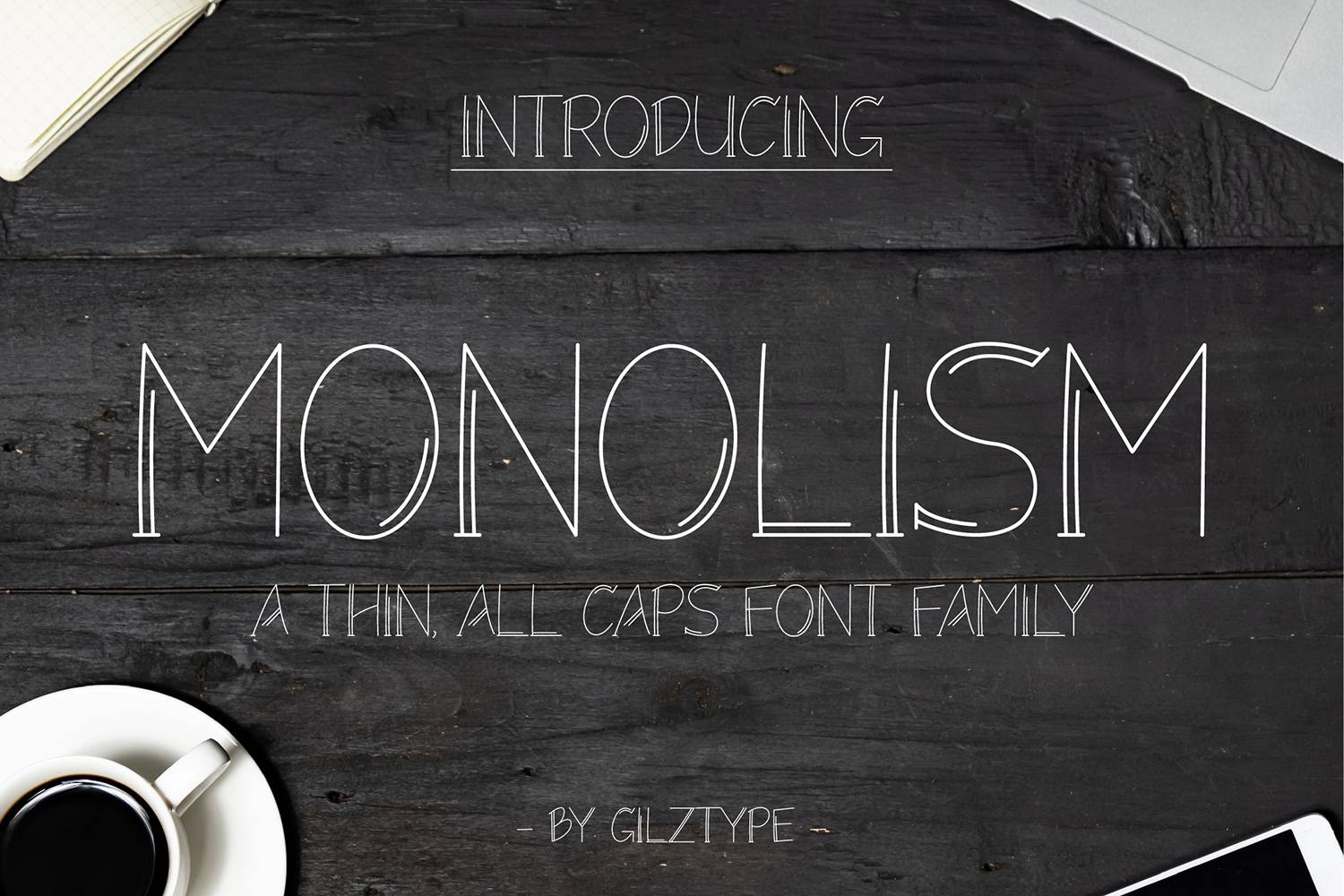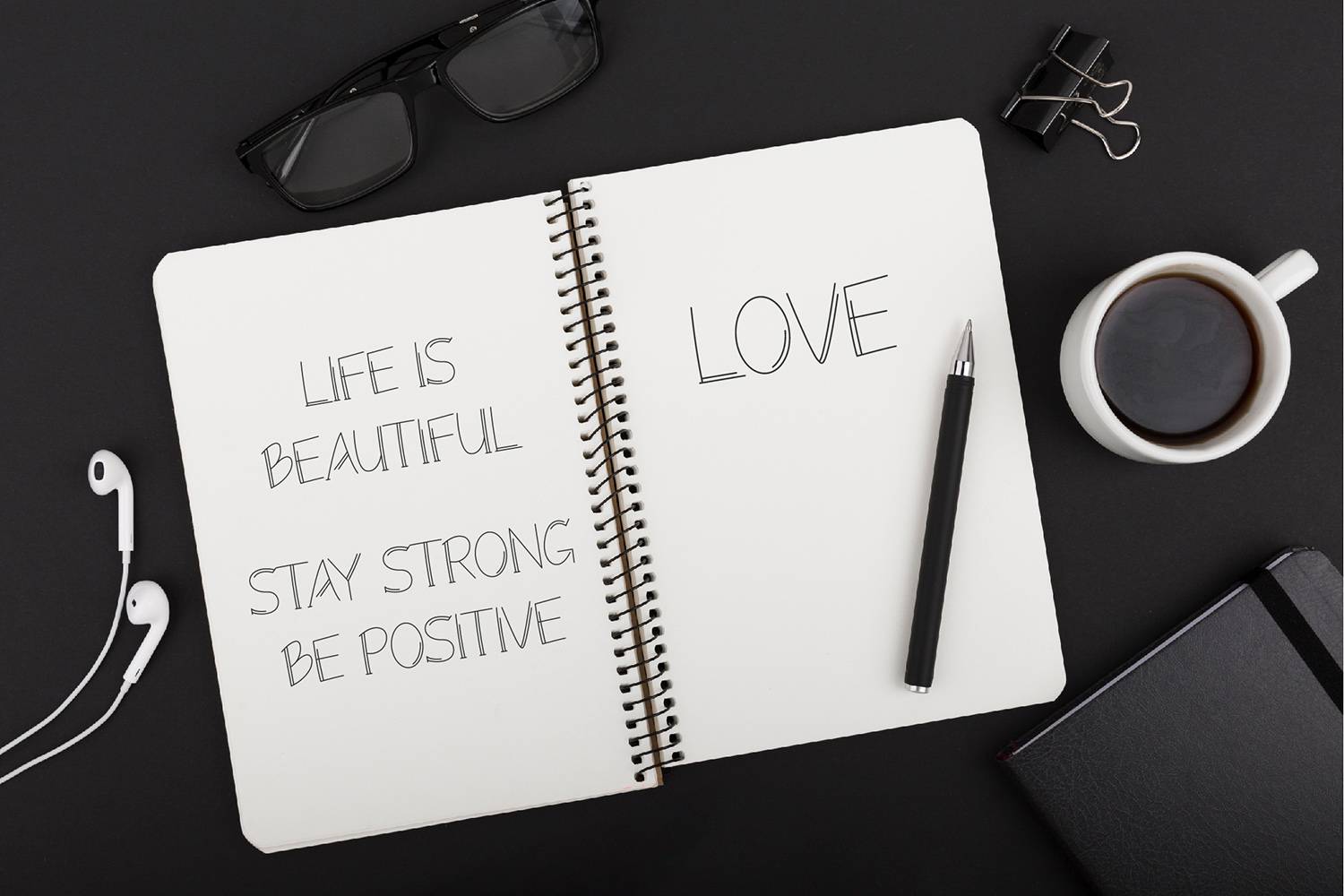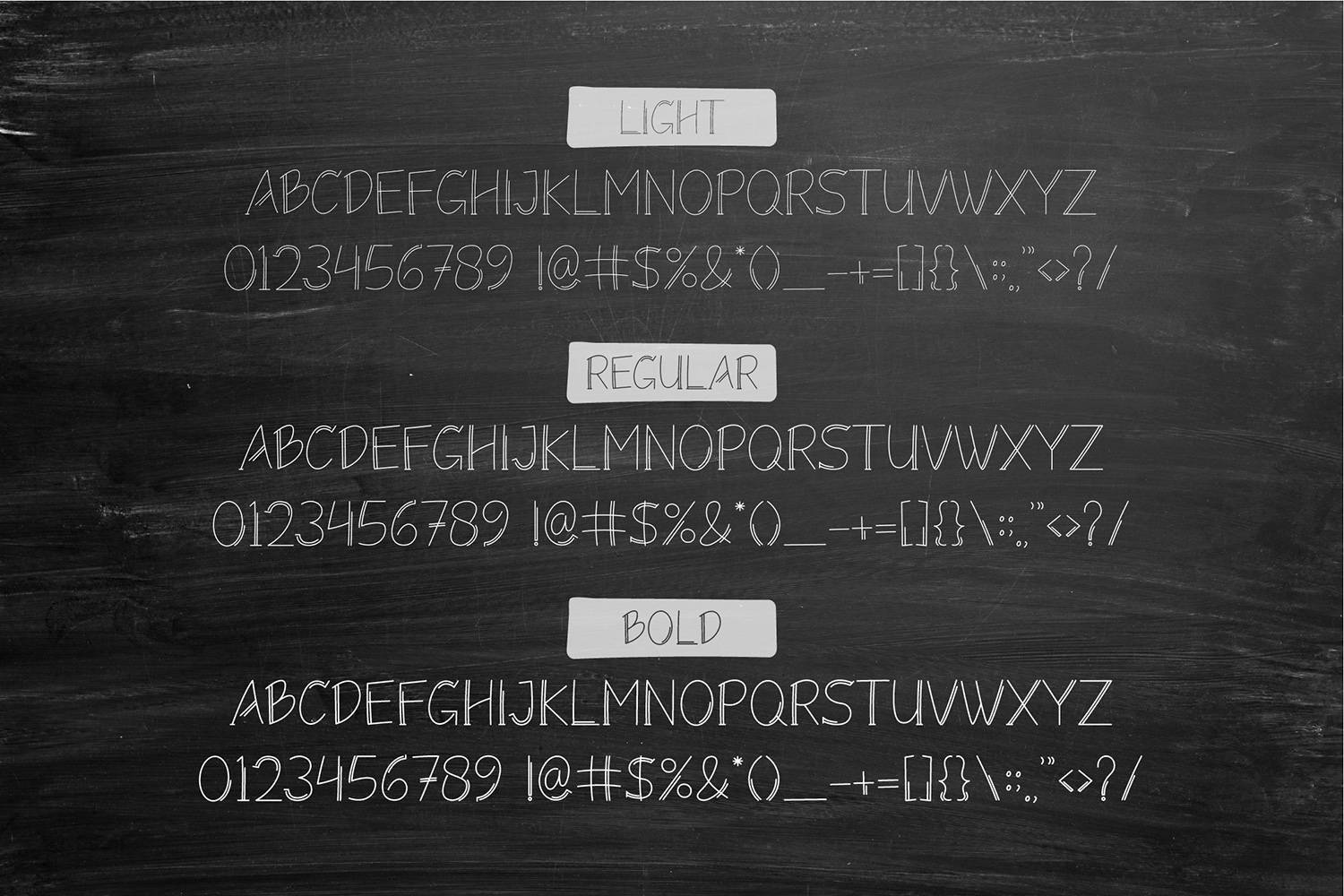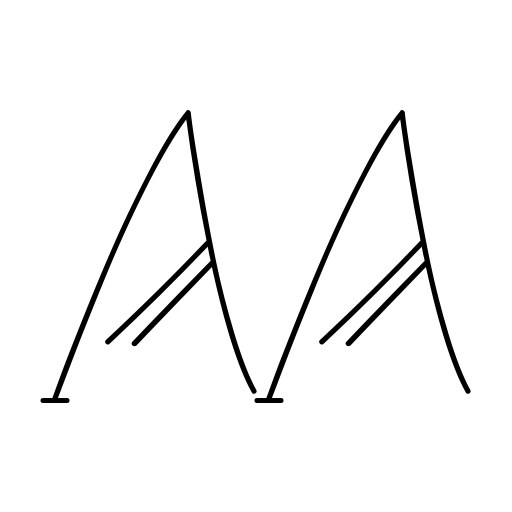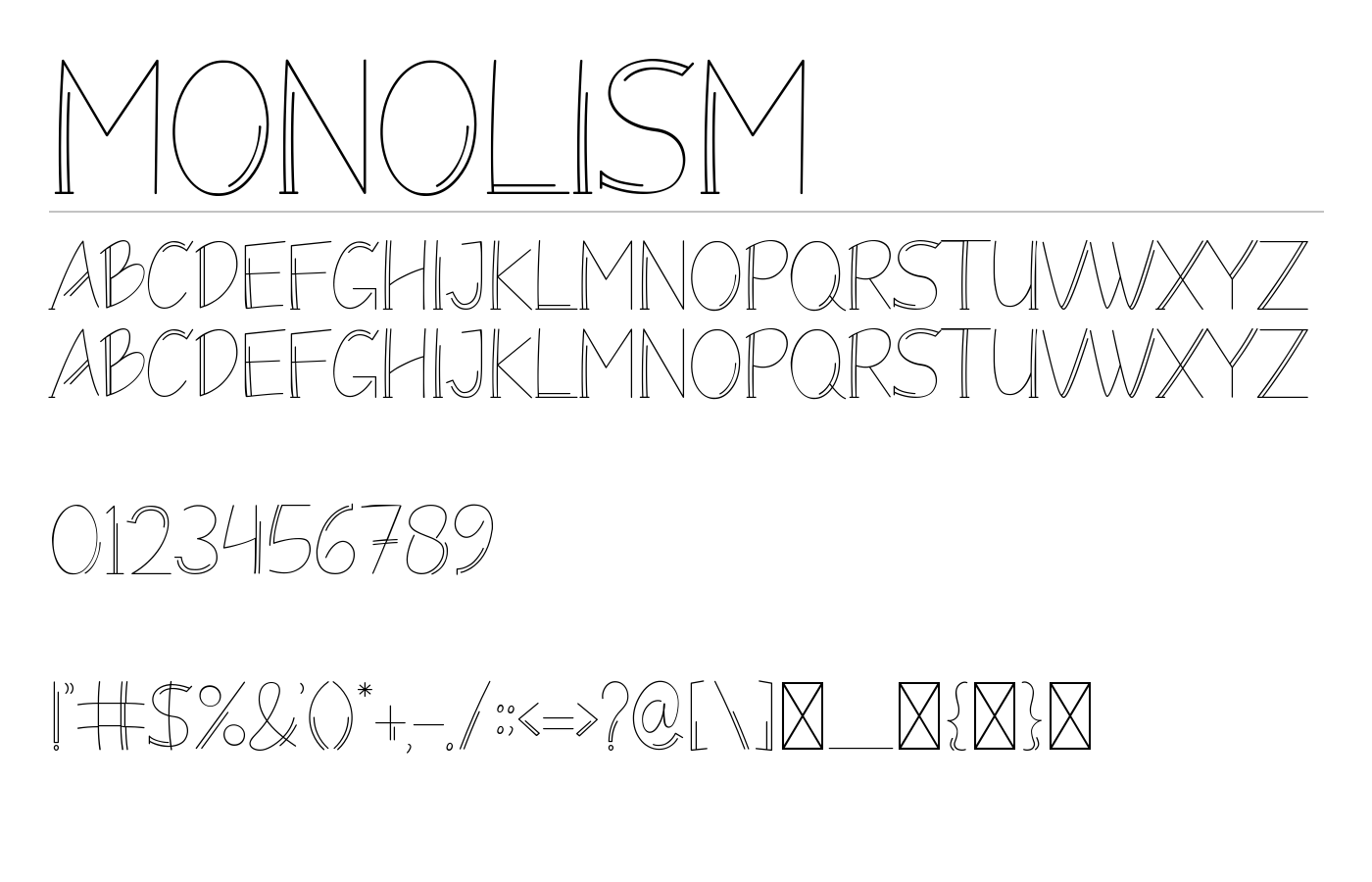
Monolism is a delicate, thin-lined sans serif font with a whimsical, hand-drawn feel thanks to its irregular stroke lines and slightly quirky letterforms. Its tall, narrow characters and light weight give it an airy and playful personality, making it ideal for creative headlines, artistic branding, and light-hearted editorial designs where a unique, modern touch is desired. This font works best when used sparingly to add charm and elegance without overwhelming the layout.
Monolism Font
About Monolism Font